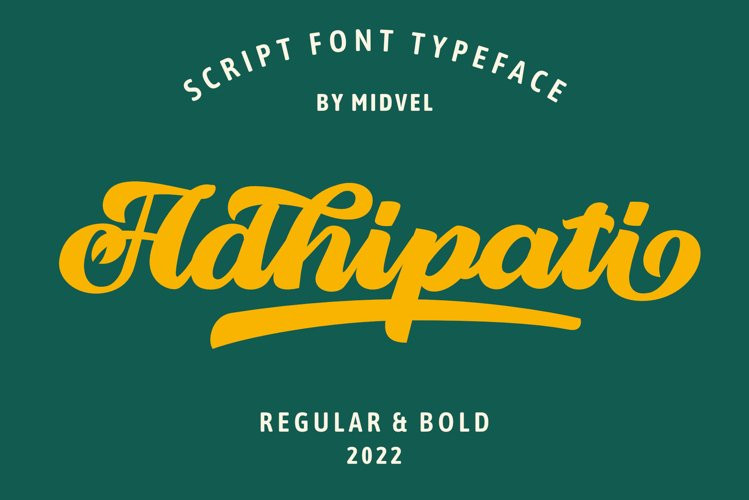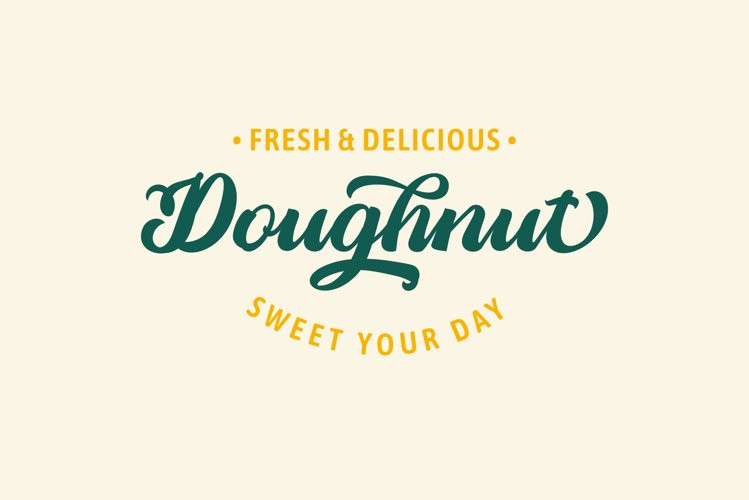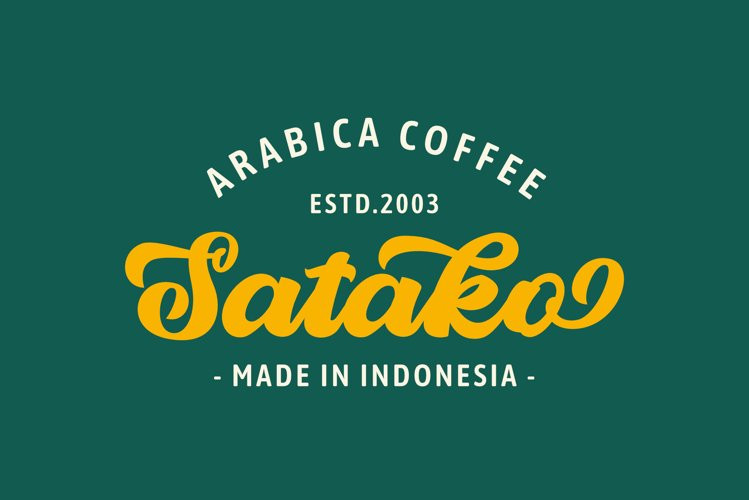
Adhipati Font
Adhipati FontThis modern script font based brush lettering with unique flow that make outstanding. Adhipati come with 139 alternate glyphs and 10 swash glyphs. Active opentype features and try Stylistic set, ligature, swash to custom your design, with PUA included. This fonts are perfect to design such us logotype, quote, apparel design, Poster design, greeting card, invitation design and other design that you need.